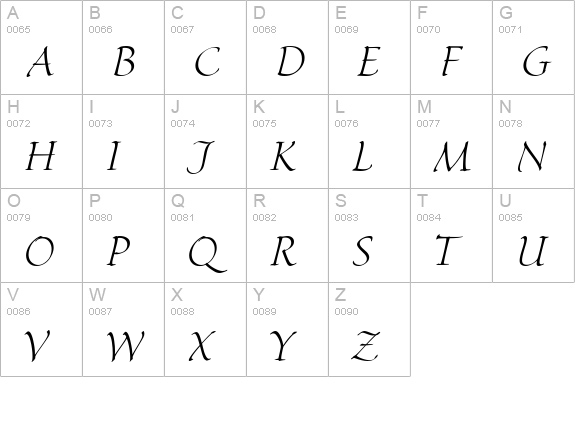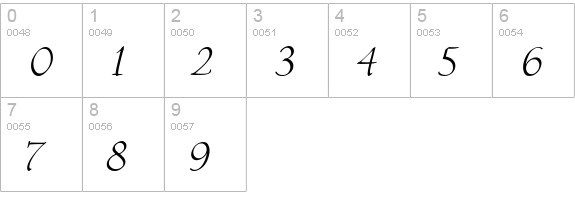
HavixHmk Font Details
Introducing HavixHmk Font, a dynamic and versatile typeface that effortlessly combines modernity with a hint of classic elegance. This font is the perfect choice for designers, creatives, and anyone seeking a fresh and unique look for their projects. HavixHmk Font boasts a wide range of characters, including uppercase and lowercase letters, numerals, punctuation marks, and special symbols. Its clean and sleek lines make it readable and legible in any context, while its subtle curves add a touch of sophistication. What sets HavixHmk Font apart is not only its stunning aesthetic, but also its accessibility. This font is freely available to download at FontsMarket.com, making it an ideal choice for both personal and commercial projects. Whether you're designing a logo, creating branding materials, or crafting eye-catching advertisements, HavixHmk Font will elevate your work to new heights. With its versatility and timeless appeal, HavixHmk Font is suitable for a wide range of applications. From fashion and beauty industries to editorial layouts, this font effortlessly adapts to any design concept, bringing a touch of modern flair to your compositions. So, why wait? Download HavixHmk Font today and unleash your creativity with this exquisite typeface. Experience the freedom to express your ideas with a font that not only captivates but also excels in performance. Let HavixHmk Font be your secret weapon in creating stunning designs that leave a lasting impression.